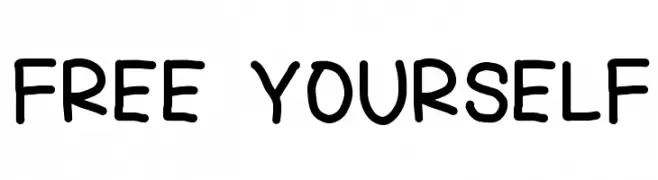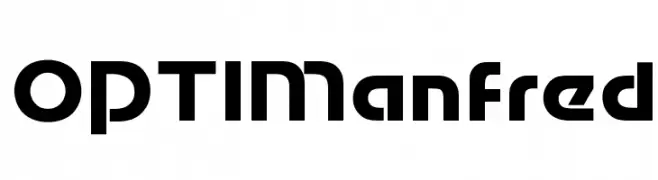
A bold, handwritten font with a playful and casual style.
A bold, dynamic script font with a playful and energetic style.
A playful, bold font with rounded strokes and a dynamic, friendly appearance.
A bold, stencil-style font with a rugged, bleedy texture.
A playful, handwritten font with dynamic strokes and a casual style.
A bold, handwritten font with a casual and playful style.
A playful, handwritten font with fluid, irregular strokes and a casual vibe.
A bold, decorative font with tall, narrow characters and high contrast.
A bold, brush-style font with dynamic, hand-painted strokes.
Elegant, cursive handwritten script with fluid connections.
A bold, decorative font with a vintage and ornate style.
A bold, playful font with rounded, bulbous characters and tight spacing.
A sophisticated script font with elegant, flowing cursive strokes.
A flowing, elegant script font with graceful curves and consistent stroke width.
A bold, brush-style font with dynamic and energetic strokes.
A bold, brush-stroke font with a raw, expressive style.
A playful, hand-crafted font with irregular, cut-out shapes.
A bold, oblique font with a papercut effect, offering a playful and handcrafted style.
A playful, chocolate-inspired font with bold, bubbly characters.
A bold, geometric font with a 3D effect and industrial style.
A bold, blocky font with high contrast and a modern, impactful style.
A playful, rounded font with a bold, whimsical style.
A bold, geometric font with a playful, stencil-like style.
A bold, playful font with a 3D effect and geometric style.